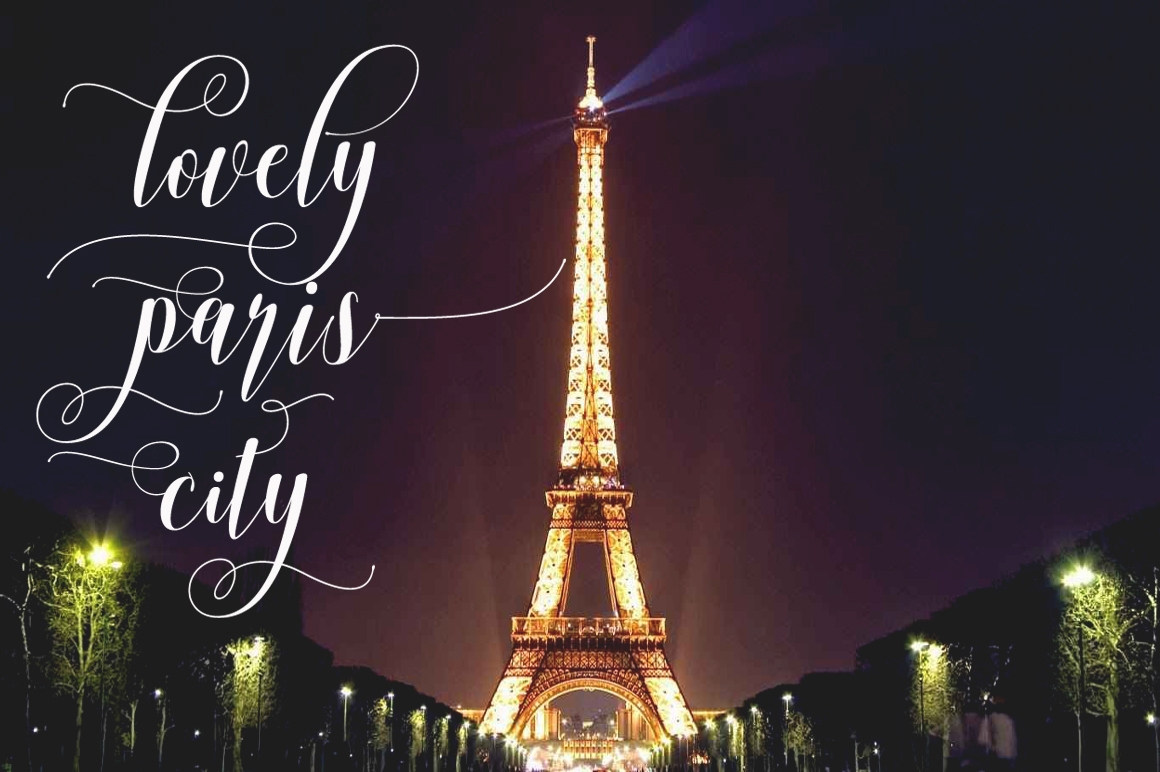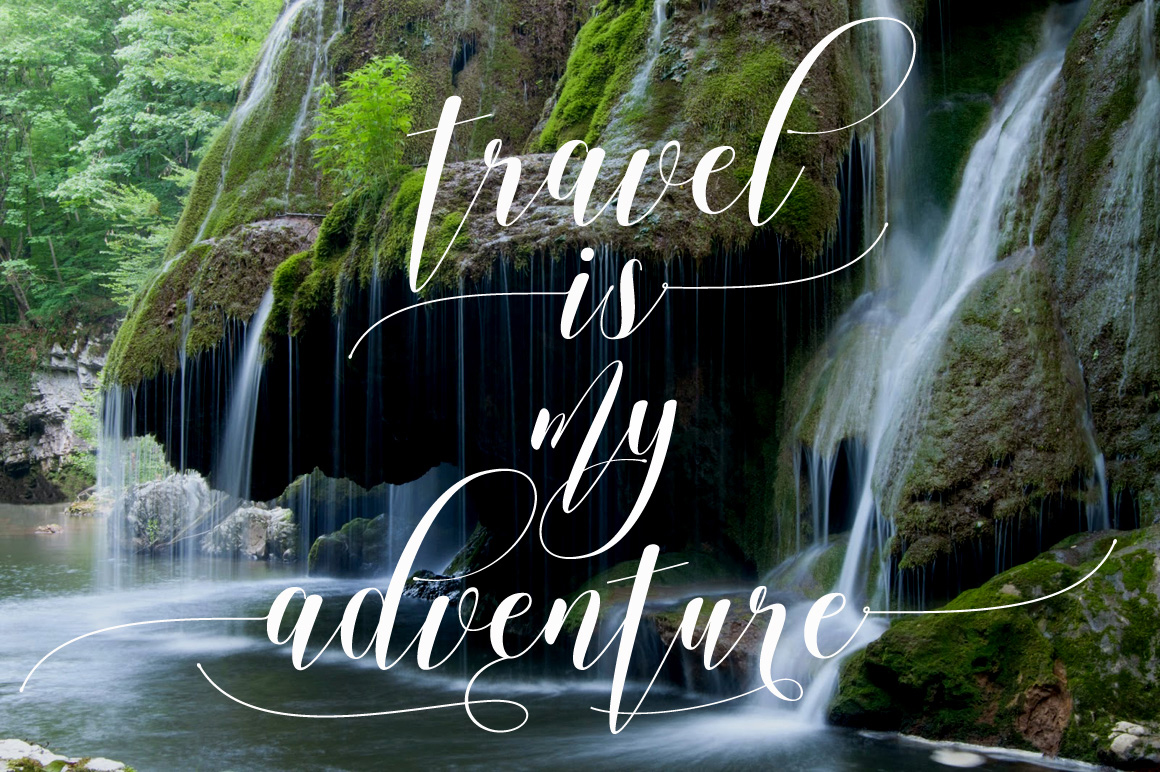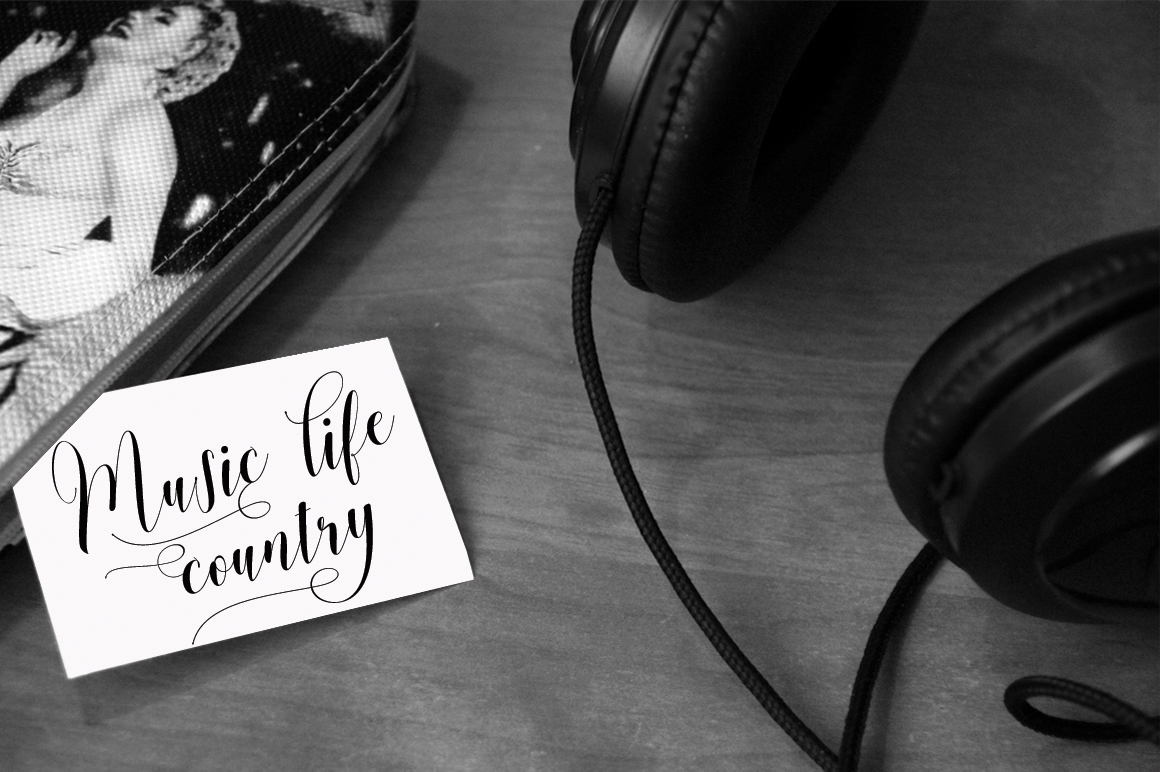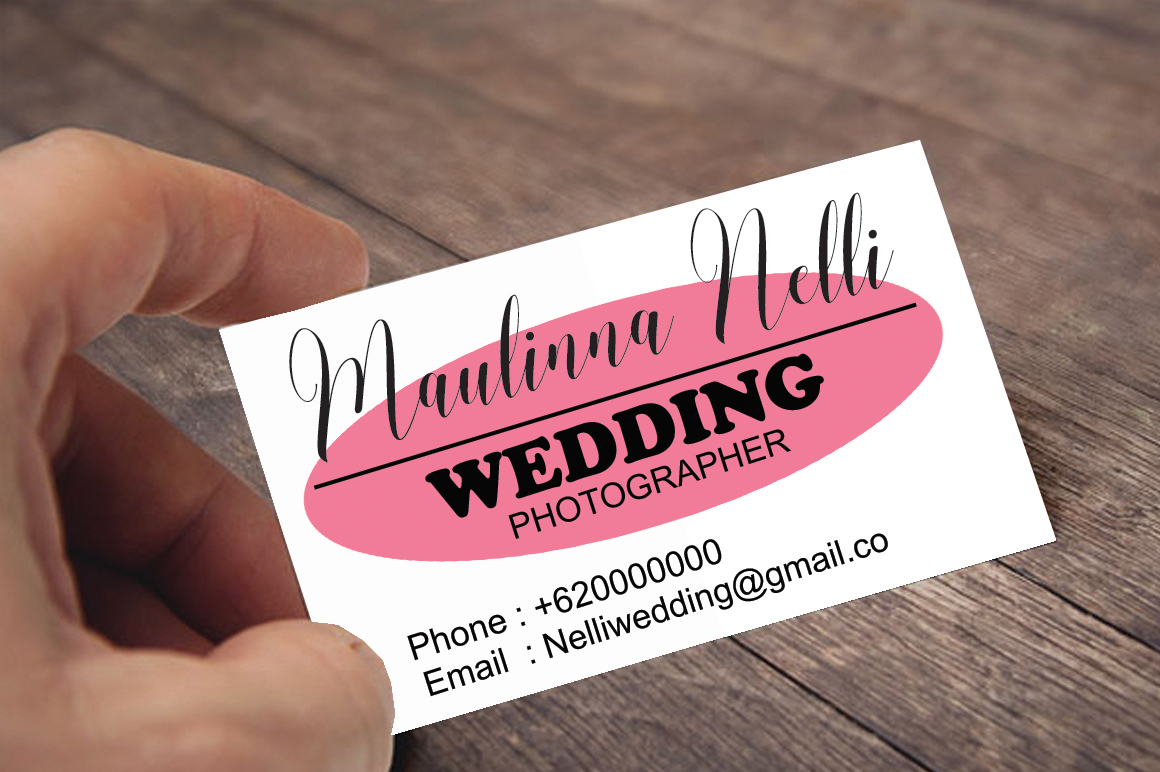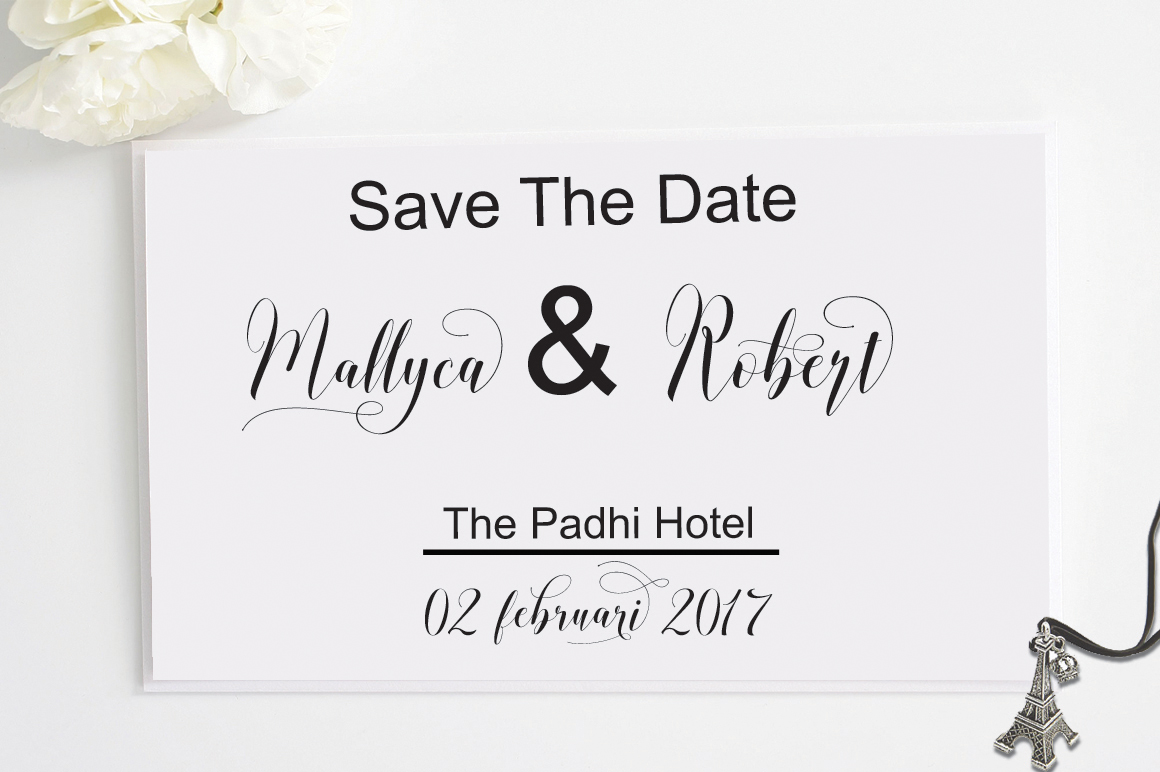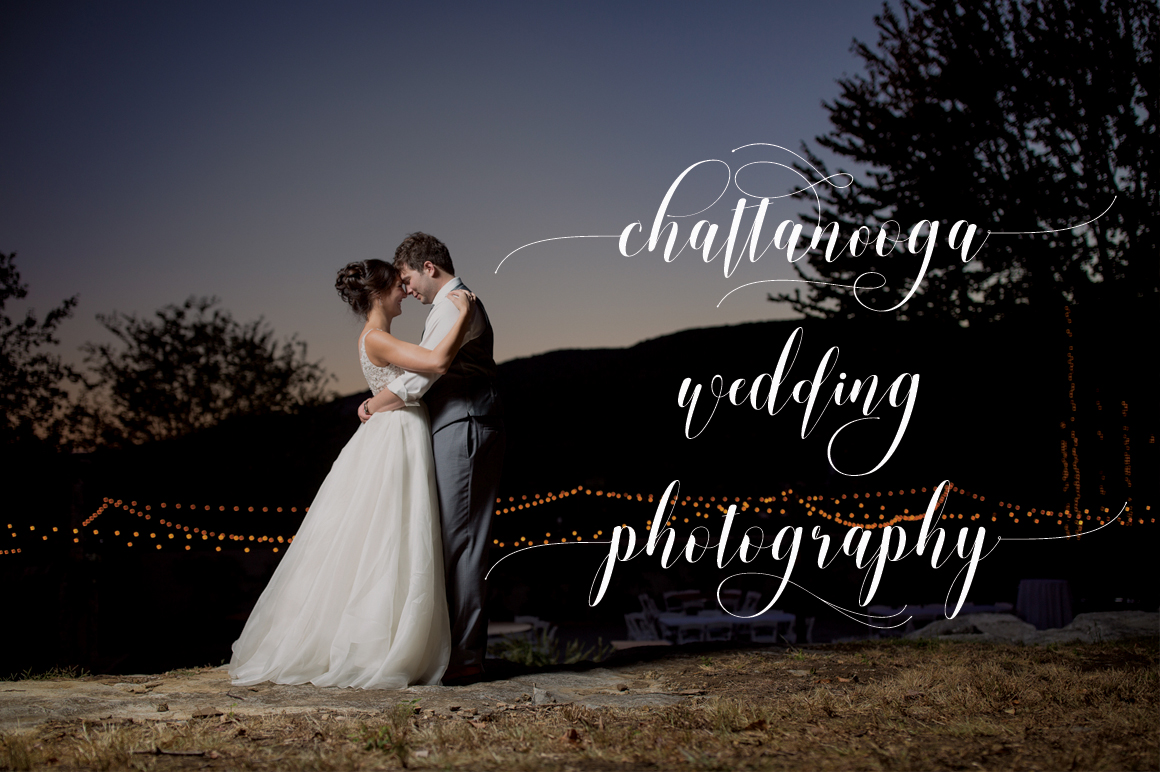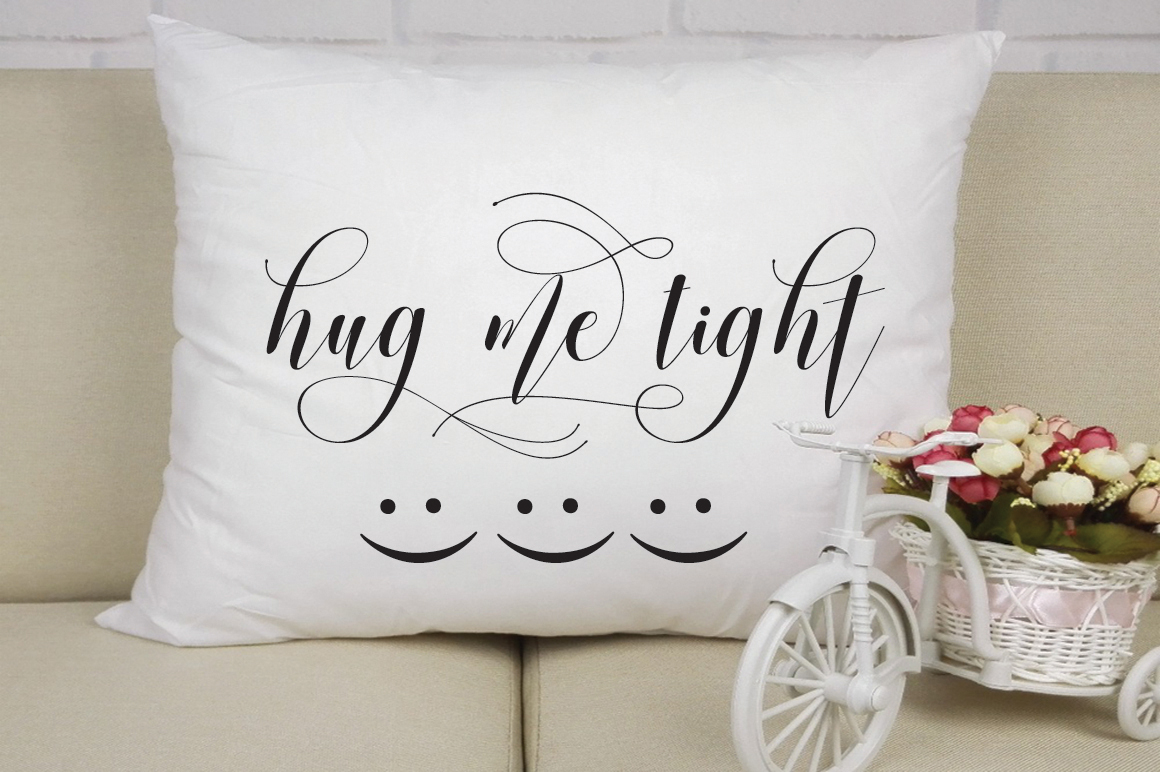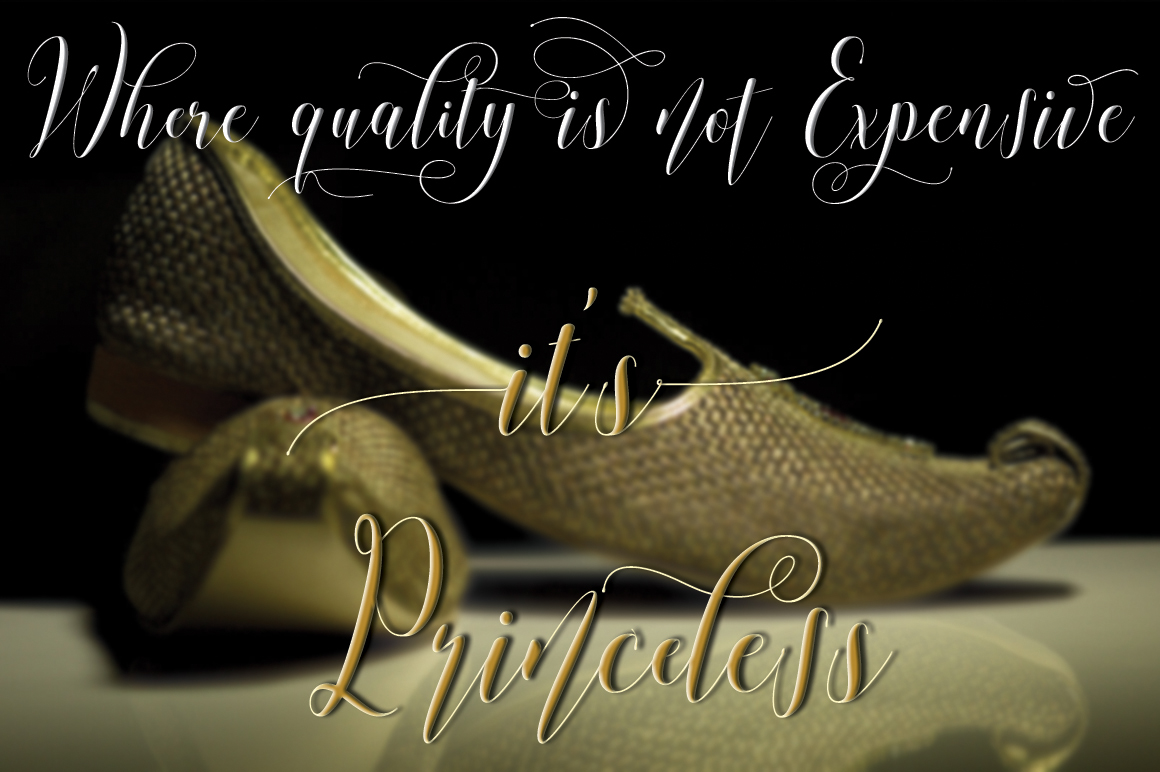
Momenttion Font
About Momenttion Font
Momenttion is a beautiful modern script that comes with over 380 unique handmade glyphs.
This font is packed with beautiful swashes and is great for many types of projects.